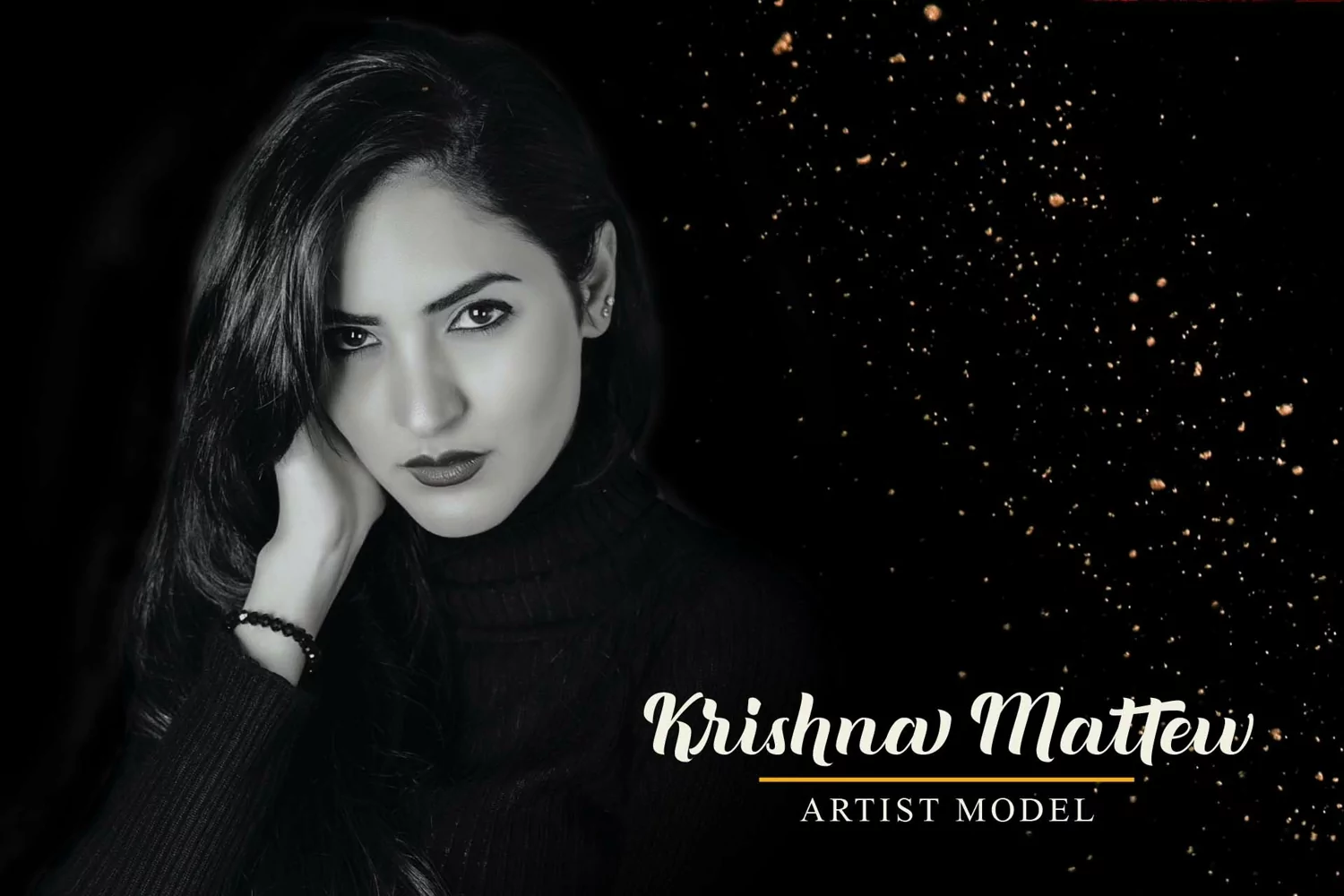
Introducing our latest product, London. London is an elegant script font.
Its made full of alternates character that looks gorgeous for many design project..
This font makes perfect for many design projects such as lettering, greeting cards, branding, business cards, quotes, posters, stickers, blogs, logos, weddings, signage, packaging, birth announcements, photo overlays, wall art, printed materials, bags, t-shirts and much more. . . !